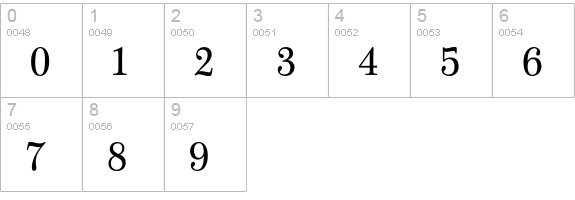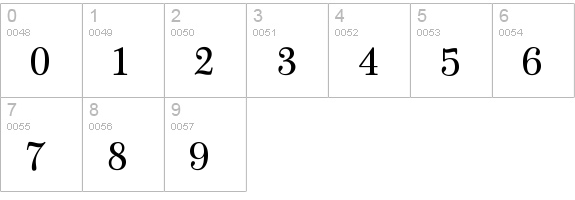
Scotch-Middle Font Details
Introducing Scotch-Middle, a captivating and versatile font that effortlessly blends elegance and modernity. Crafted with meticulous attention to detail, this typeface exudes a timeless charm that is perfect for a wide range of design projects. With its clean lines and balanced letterforms, Scotch-Middle offers a harmonious balance between sophistication and legibility. Whether used for headlines, logos, branding materials, or editorial designs, this font effortlessly commands attention and conveys a sense of refined professionalism. The versatility of Scotch-Middle is further enhanced by its extensive character set, which includes a variety of alternative glyphs and ligatures. These additional options allow designers to elevate their compositions and add a unique touch to their creations. What truly sets Scotch-Middle apart is its accessibility. This remarkable font is freely available for download at FontsMarket.com, empowering designers of all levels to effortlessly integrate it into their projects. By providing this font free of charge, Scotch-Middle encourages creativity and enables designers to bring their visions to life without any limitations. Whether you are working on a personal project, a corporate endeavor, or a client commission, Scotch-Middle is the ideal font to elevate your designs to new heights. Its timeless appeal, versatility, and accessibility make it a must-have addition to any designer's toolkit. Embrace the endless possibilities that Scotch-Middle offers and let your creativity soar.